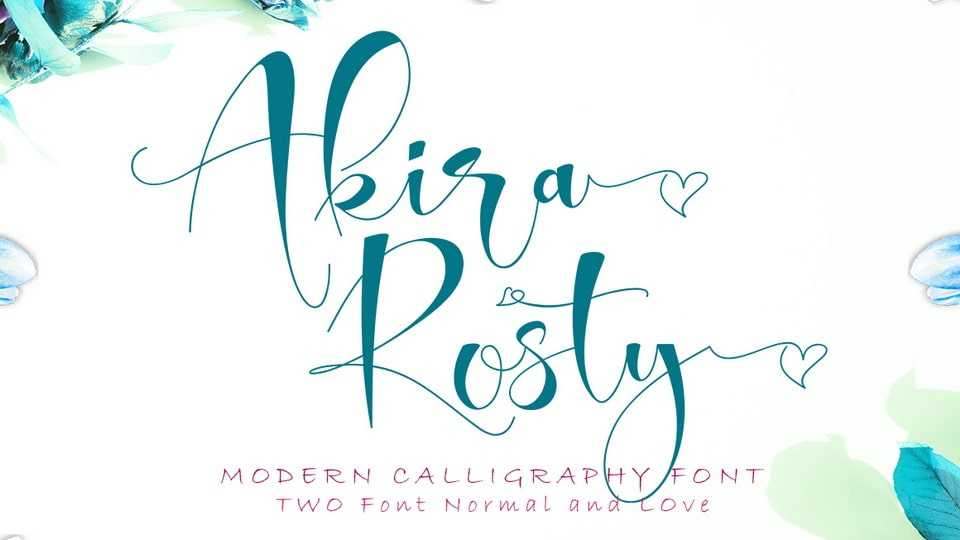
Download Akira Rosty font, a very unique handwriting, the shape is modern but pleasing to the eye and the style is very natural. This font is designed to have the potential to take your every creative idea to the highest level.